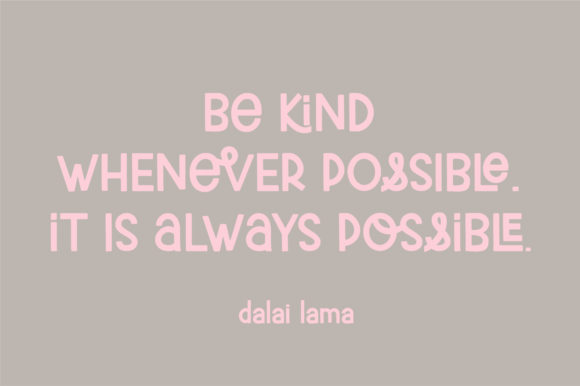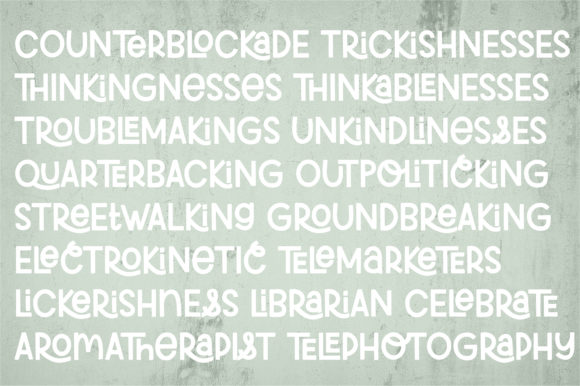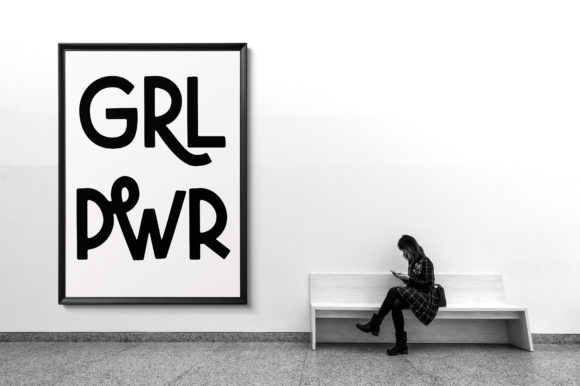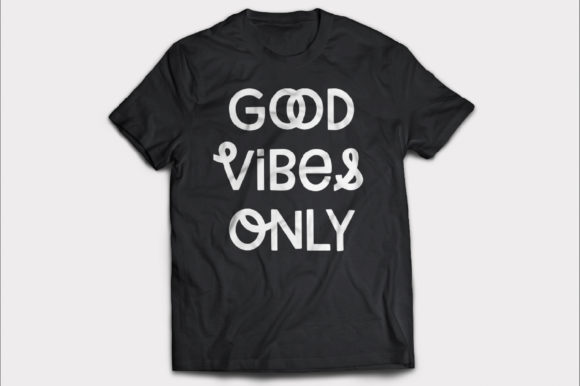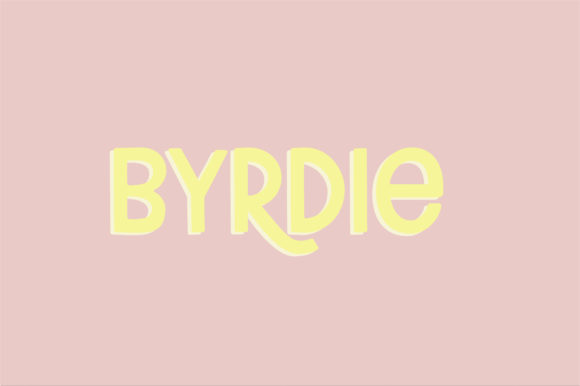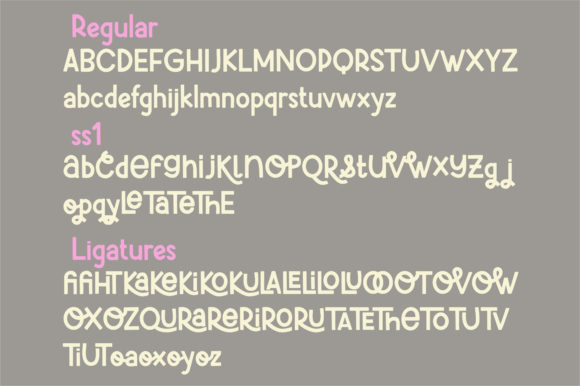
Grayson Font: The Ultimate Display Font for Creative Standouts
In the world of typography, fonts play a crucial role in bringing creative ideas to life. Among the numerous fonts available, Grayson font has gained significant attention for its unique blend of fun, quirkiness, and authenticity. This enchanting display font has the power to transform any design into a true standout, making it a favorite among designers and crafters.
What Makes Grayson Font Special?
Grayson font embodies a distinct personality that sets it apart from other fonts. Its fun and quirky nature makes it perfect for designs that require a touch of playfulness and whimsy. At the same time, its authentic feel ensures that the font remains relatable and genuine, making it suitable for a wide range of creative projects.
One of the key features that make Grayson font special is its ability to add a touch of elegance to designs while maintaining a carefree spirit. The font’s unique lettering style, with its subtle irregularities and charming imperfections, gives it a handcrafted feel that resonates with audiences.
Grayson font is an excellent choice for designers and crafters working on creative projects that require a standout font. Whether you’re designing a logo, creating a brand identity, or crafting a one-of-a-kind visual project, Grayson font can help you achieve your goals.
The font’s versatility makes it suitable for various design applications, including:
- Logos and branding: Grayson font’s unique personality makes it perfect for creating memorable logos and brand identities.
- Posters and flyers: The font’s bold and eye-catching style ensures that your posters and flyers grab attention.
- Social media graphics: Grayson font’s fun and quirky nature makes it ideal for creating engaging social media graphics.
- Packaging design: The font’s authentic feel and elegant touch make it suitable for packaging design projects.
Why Designers and Crafters Love Grayson Font
Designers and crafters love Grayson font for its ability to add a touch of personality to their designs. The font’s unique style allows designers to create visual projects that stand out from the crowd, while its versatility ensures that it can be used in various design applications.
Some of the reasons why designers and crafters prefer Grayson font include:
- Easy to read: Despite its unique style, Grayson font is easy to read, making it perfect for designs that require a clear and legible font.
- Highly customizable: The font’s style can be easily customized to fit your design needs, allowing you to experiment with different colors, sizes, and styles.
Tips for Using Grayson Font Effectively
To get the most out of Grayson font, here are some tips for using it effectively:
- Use it sparingly: Grayson font’s bold style can be overwhelming if used excessively. Use it sparingly to create visual interest and emphasize key elements.
- Pair it with complementary fonts: Pair Grayson font with complementary fonts to create a harmonious and balanced design.
- Experiment with colors: Grayson font’s style can be enhanced with different colors. Experiment with various color combinations to find the perfect fit for your design.
Grayson font is an enchanting display font that embodies fun, quirkiness, and authenticity. Its unique style makes it perfect for designers and crafters looking to create standout designs that capture attention. With its versatility, ease of use, and high customizability, Grayson font is an excellent choice for a wide range of creative projects.
Whether you’re a seasoned designer or a crafter looking to add a touch of personality to your designs, Grayson font is an excellent addition to your typography toolkit. So, why not give Grayson font a try and see how it can transform your creative ideas into true standouts?